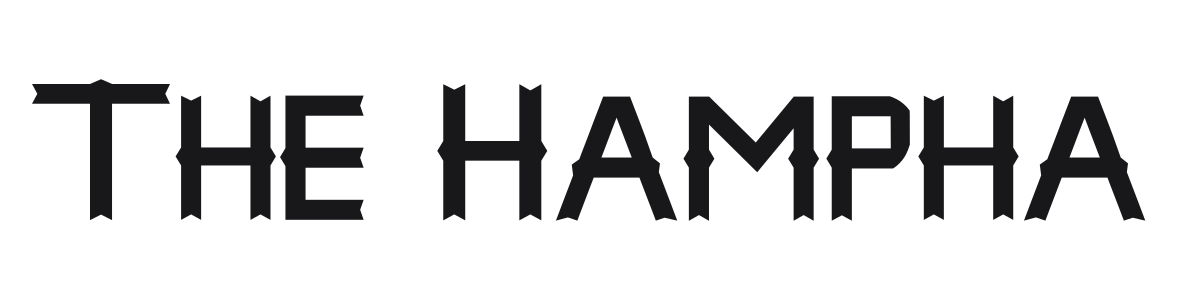
The Hampha
The Hampha is a bold condensed display face with aggressively jagged, cut-edge characters that feel like they've been hacked out of raw material. The distressed notching along every stroke gives it a visceral, high-energy presence that works well at large sizes for band logos, game titles, or action-oriented branding. It carries a clear metal and industrial DNA without leaning into full blackletter territory.